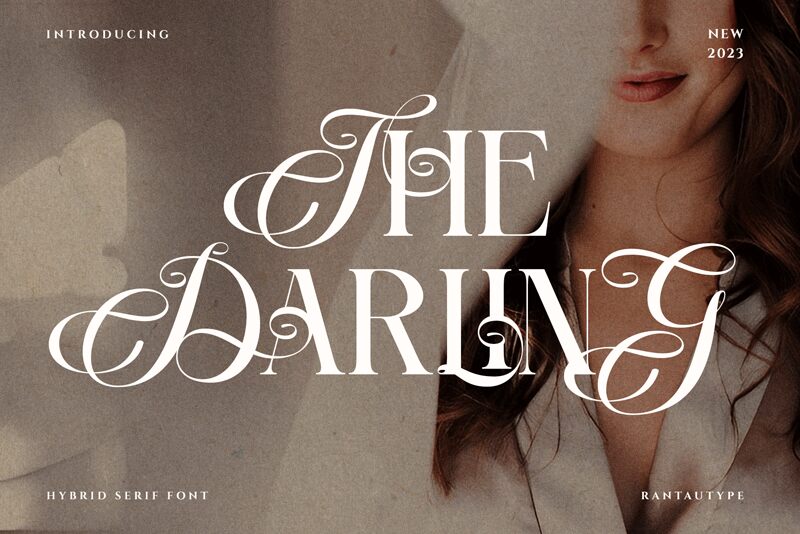
The Darling
The Darling font by RantautypeStudio is a free decorative serif typeface with sweeping, calligraphic curls that feel straight out of a couture invitation. Its tall, elegant letters are trimmed with fine hairline details, then wrapped in generous flourishes that loop and spiral like ink pulled from a pointed pen. The overall texture is luxurious and romantic, giving even a single word the presence of a logo or monogram.
Using The Darling, your headlines start to feel like heirlooms: perfect for wedding invitations, save-the-dates, boutique branding, perfume packaging, event posters, and editorial mastheads. This free font shines when it has room to breathe, so keep tracking slightly open and pair it with a clean minimalist sans for body copy. Let The Darling handle the drama in short phrases, names, and titles, and it will instantly elevate any refined, feminine, or vintage-inspired project.